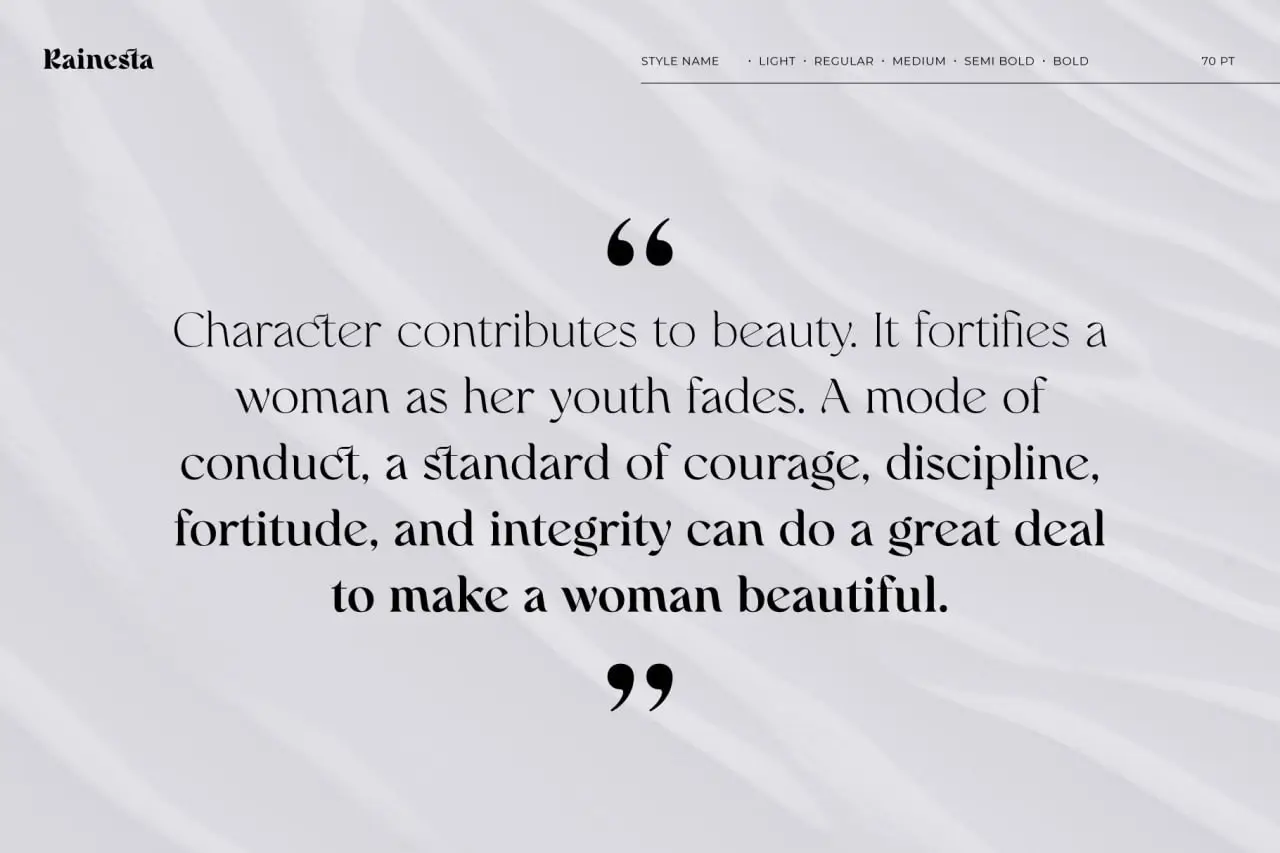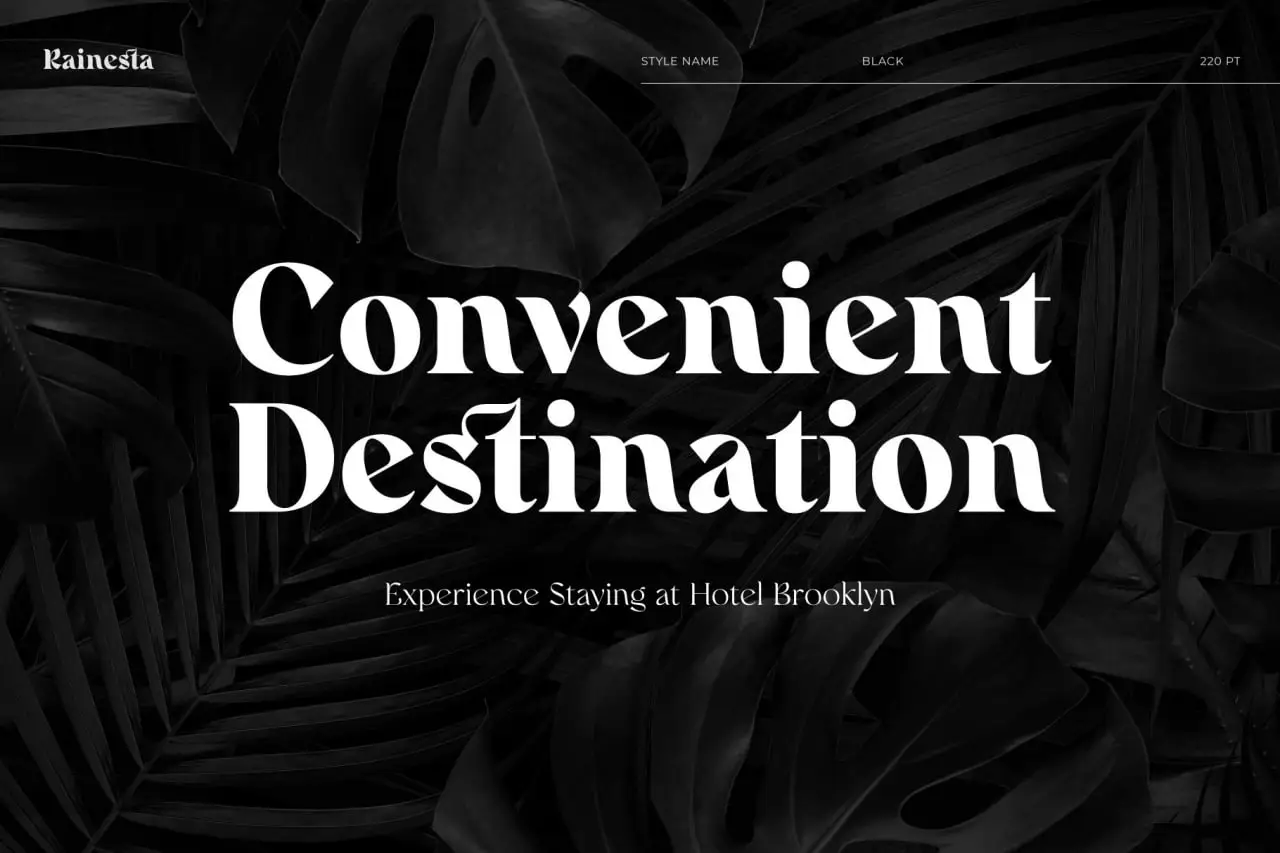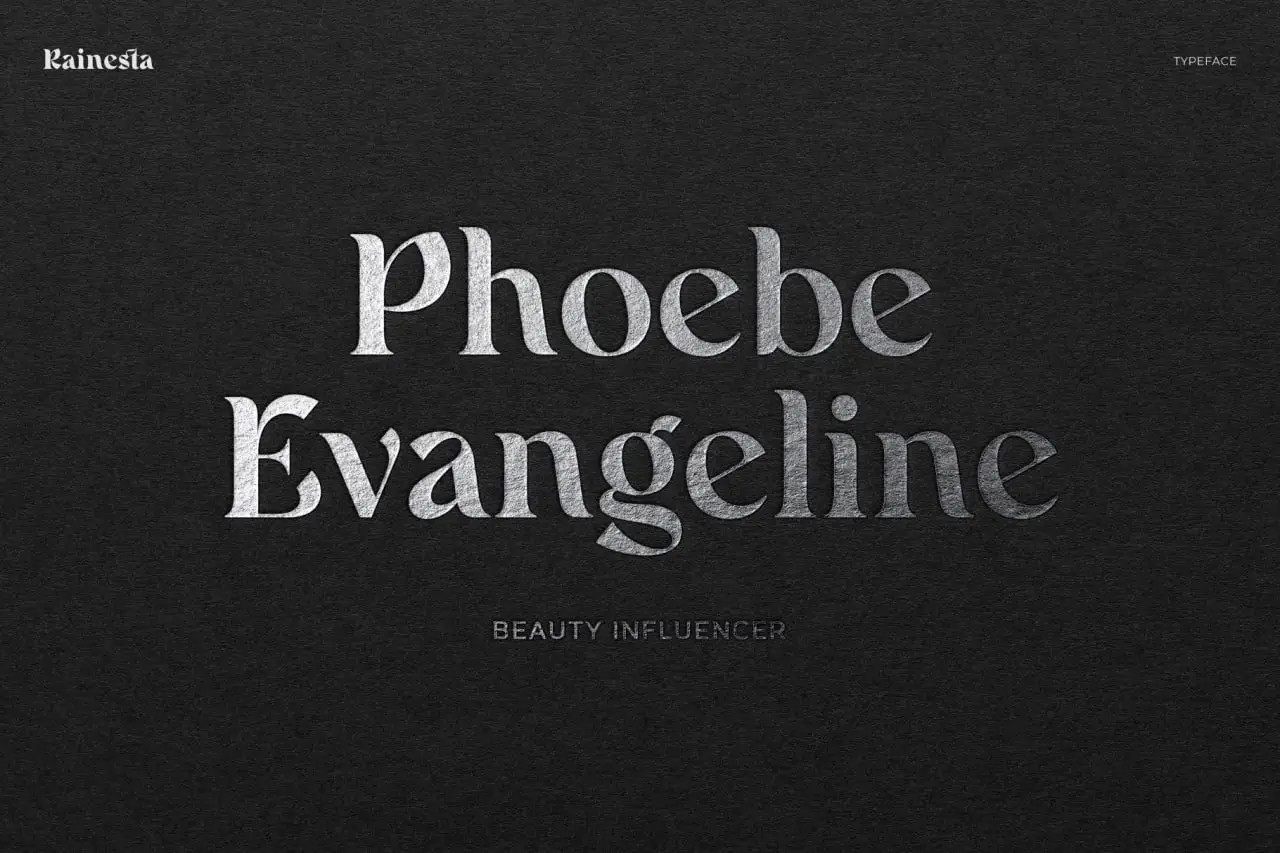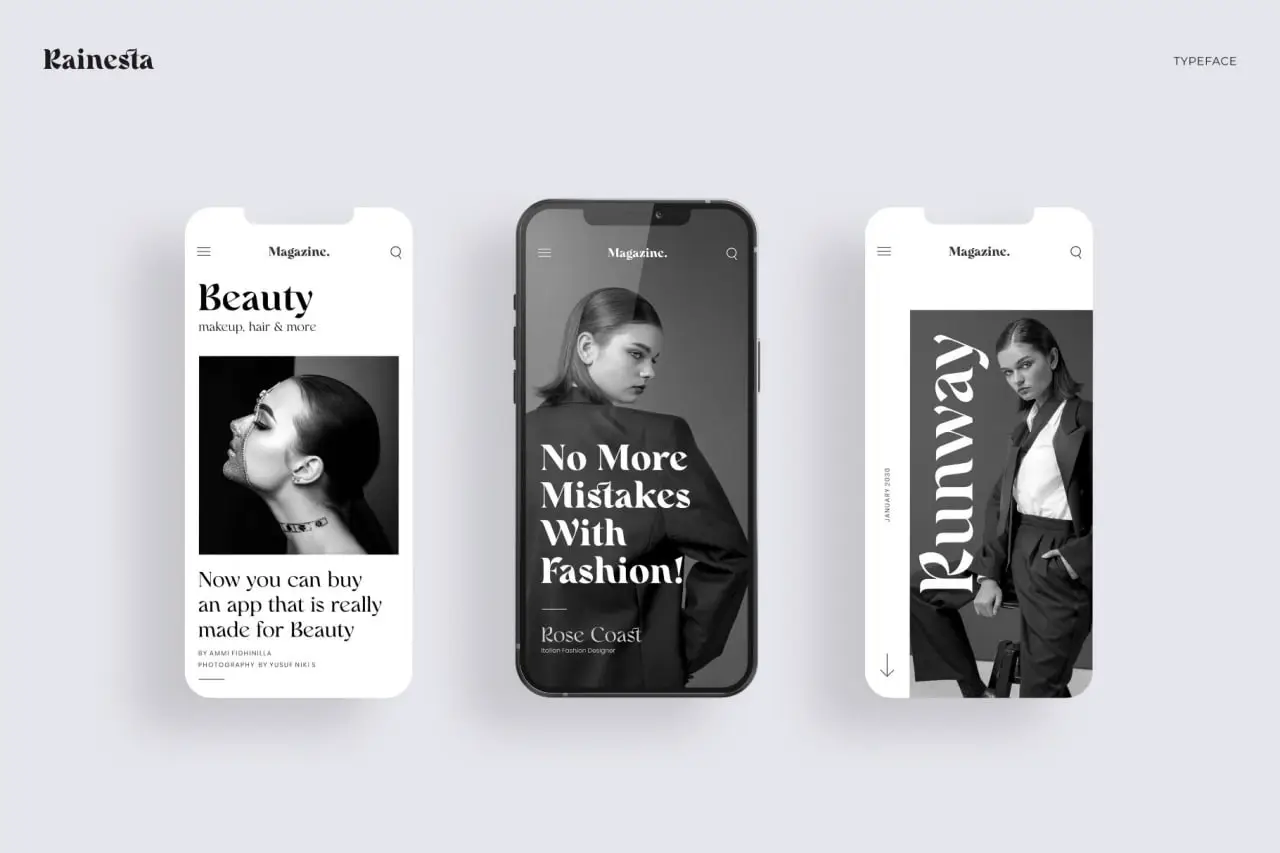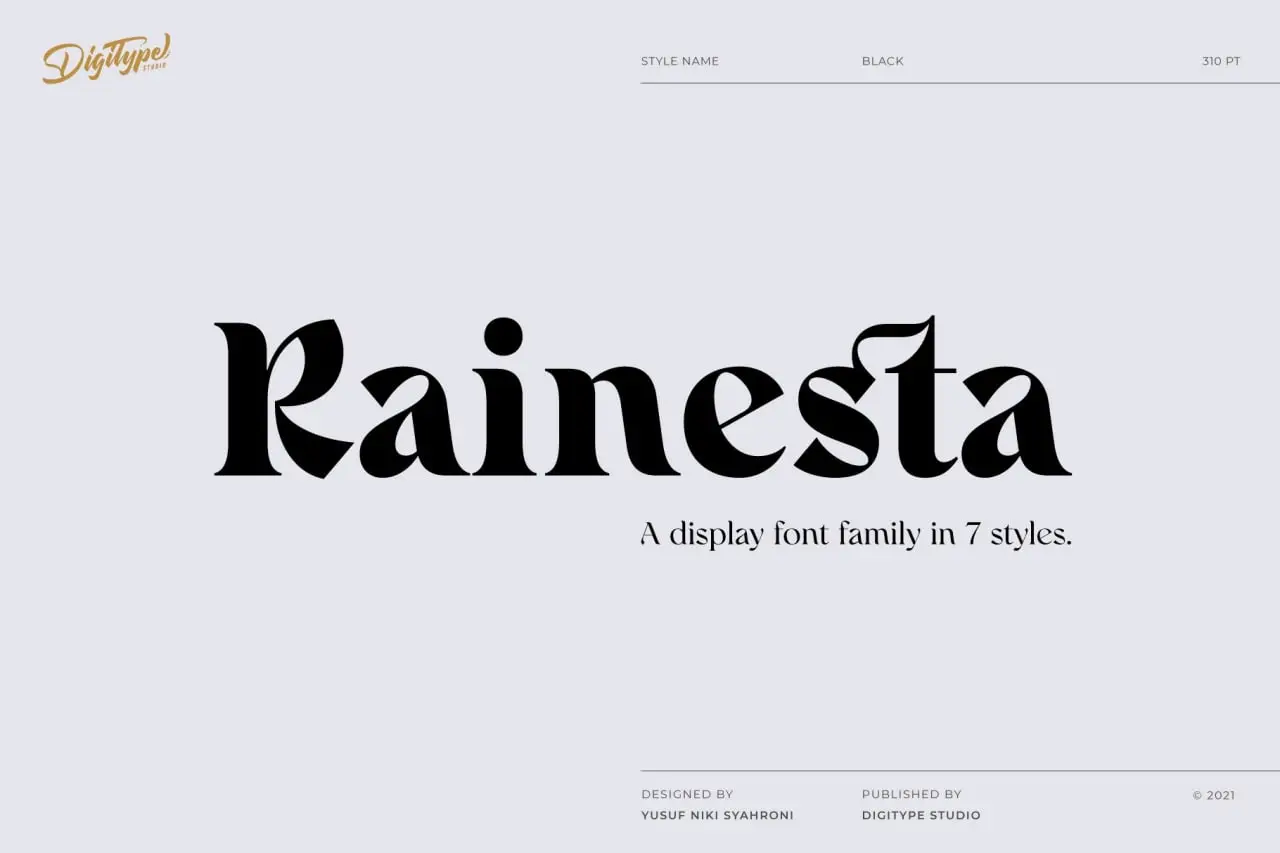
Rainesta Font
Introducing the Rainesta Font, a beautifully crafted typeface designed to elevate your creative projects. This font features a modern and elegant style, making it ideal for a variety of applications, including branding, logos, web design, print materials, and user interfaces.
Utilize the Rainesta Font for eye-catching headlines, stylish invitations, or any project that requires a touch of sophistication. Its versatility ensures it can be adapted to suit both digital and print formats.